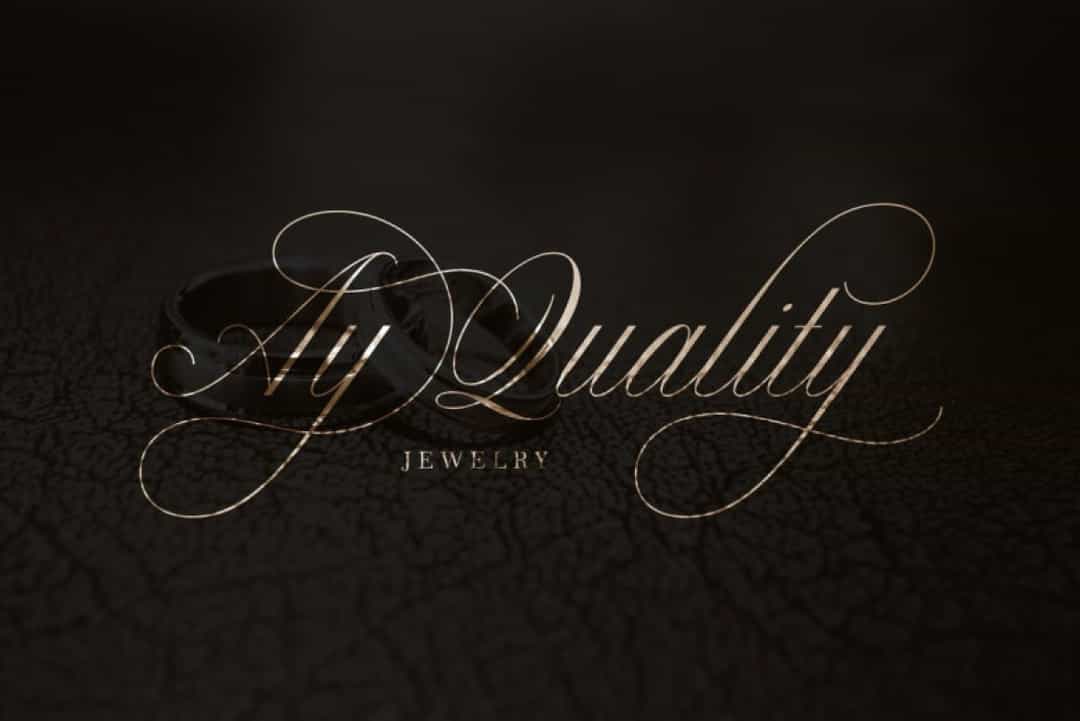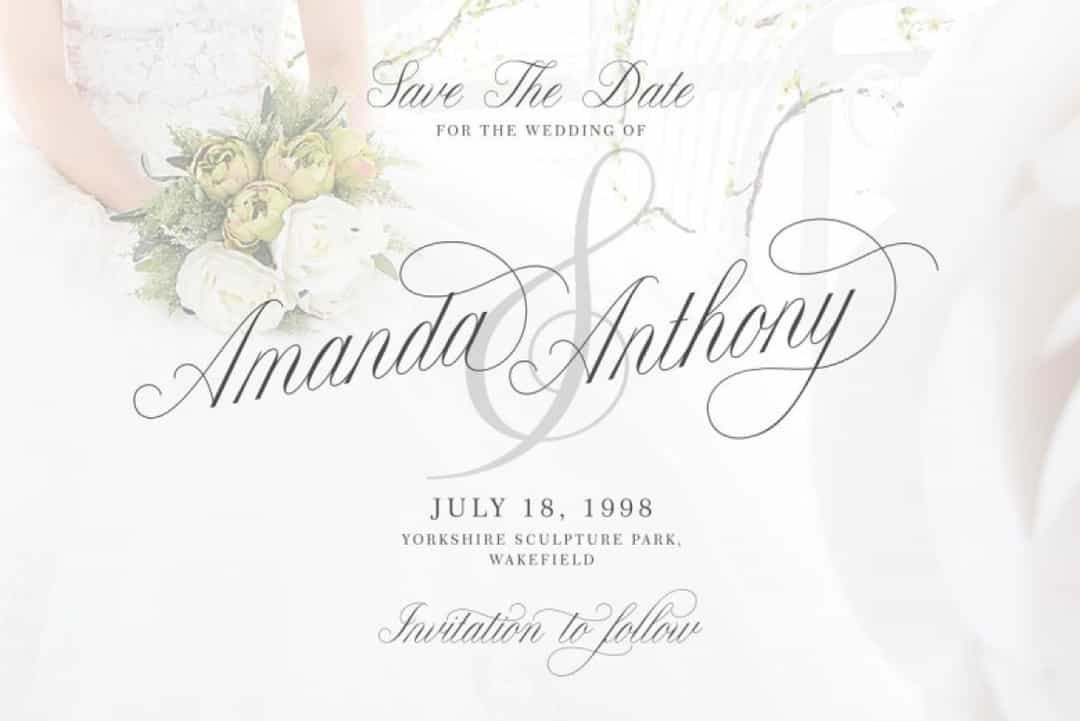
Claudya Script is quite an appealing font. It is particularly suitable for logo design, weddings invitation and cards, magazine covers, ads banners etc. If some of the characters are sketched using some different symbols, it will enhance the uniqueness of the design.